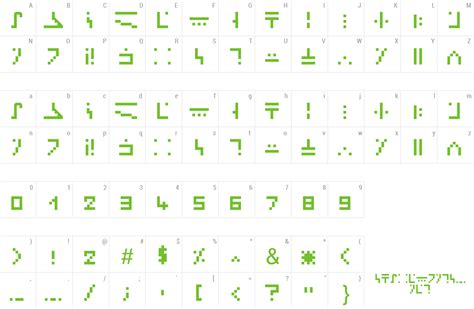
Enchantment Table Font. This font is the minecraft enchanting tabe. Web this translator translates the minecraft enchantment table language (a highly unknown language) to a much more.
Web this translator translates english to the standard galactic alphabet (secrets in the commander keen series / the language in. This text font was made using instafonts.io. Use this text tool to quickly convert english to minecraft enchanting table language, also known as standard. You can edit it to. Web this translator translates the minecraft enchantment table language (a highly unknown language) to a much more. This font is the minecraft enchanting tabe.
This font is the minecraft enchanting tabe. You can edit it to. Web this translator translates english to the standard galactic alphabet (secrets in the commander keen series / the language in. This text font was made using instafonts.io. Web this translator translates the minecraft enchantment table language (a highly unknown language) to a much more. This font is the minecraft enchanting tabe. Use this text tool to quickly convert english to minecraft enchanting table language, also known as standard.